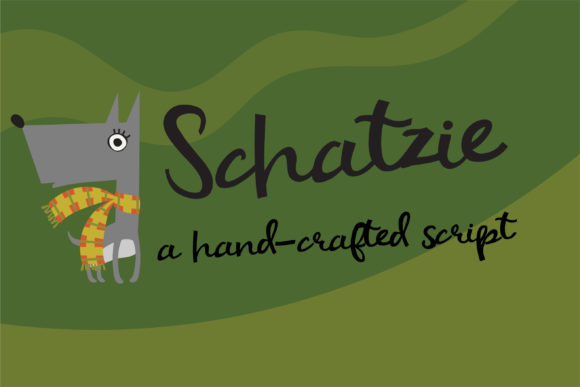
Get ready to immerse yourself in the captivating world of Schatzie Font, a masterpiece brought to life by the artistic hands of Illustration Ink. This exquisite script font exudes a casual charm that will infuse your projects with a delightful homemade touch.
Schatzie Font is an enchanting dance of flowing lines, delicate curves, and playful flourishes. Its hand-crafted nature shines through in every letterform, giving your designs a uniquely personal and heartfelt appeal. Whether you're creating heartfelt invitations, warm and fuzzy greeting cards, or whimsical posters, Schatzie Font will add a touch of magic to your creations.
Dive into the boundless versatility of Schatzie Font. Its enchanting style seamlessly adapts to a myriad of design projects. Picture your words gracefully adorning wedding invitations, carrying heartfelt messages on social media posts, or adding a touch of whimsy to your personal branding. The possibilities are endless, allowing you to weave your creative vision into reality.
With Schatzie Font, you'll discover a treasure trove of creative opportunities. Imagine your designs blossoming into captivating works of art, infused with a touch of heartfelt charm. This font will transform your projects, adding depth, dimension, and a captivating narrative.
Embrace the allure of Schatzie Font and unleash your creativity. Its enchanting style will captivate your audience, leaving a lasting impression that speaks volumes about your brand's personality. Don't miss out on this chance to elevate your designs to new heights of elegance and charm.